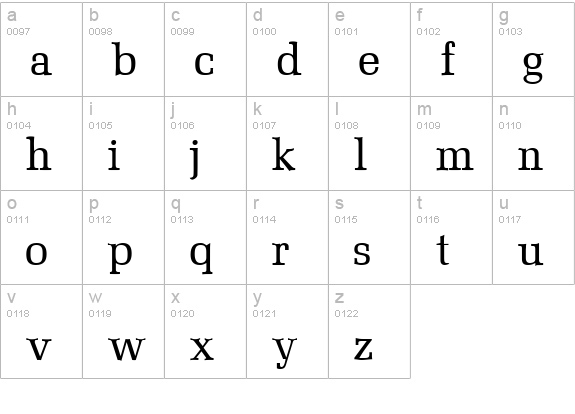
Mezzo Regular Font Details
Mezzo Regular font is a versatile and modern typeface that strikes the perfect balance between elegance and readability. Its clean lines and balanced proportions make it ideal for a wide range of design projects, from branding to editorial layouts. The subtle variations in stroke thickness add a touch of sophistication to any text, while the rounded edges give it a friendly and approachable feel. What sets Mezzo Regular font apart is that it is not only stylish and functional but also completely free to download. You can easily access this beautiful typeface at FontsMarket.com, where you can explore and use it in your projects without any cost or restrictions. With Mezzo Regular font, you can elevate your designs with a touch of class and professionalism, all while enjoying the convenience of a freely available resource.